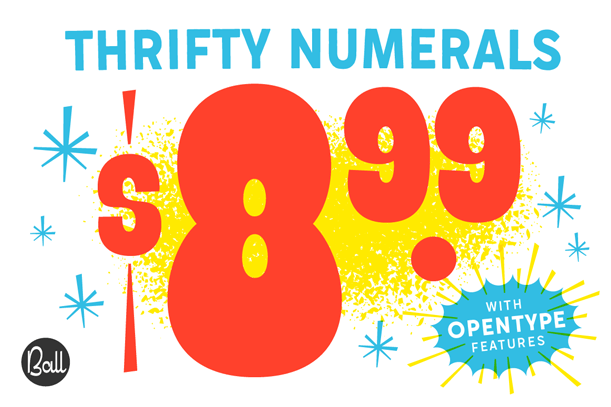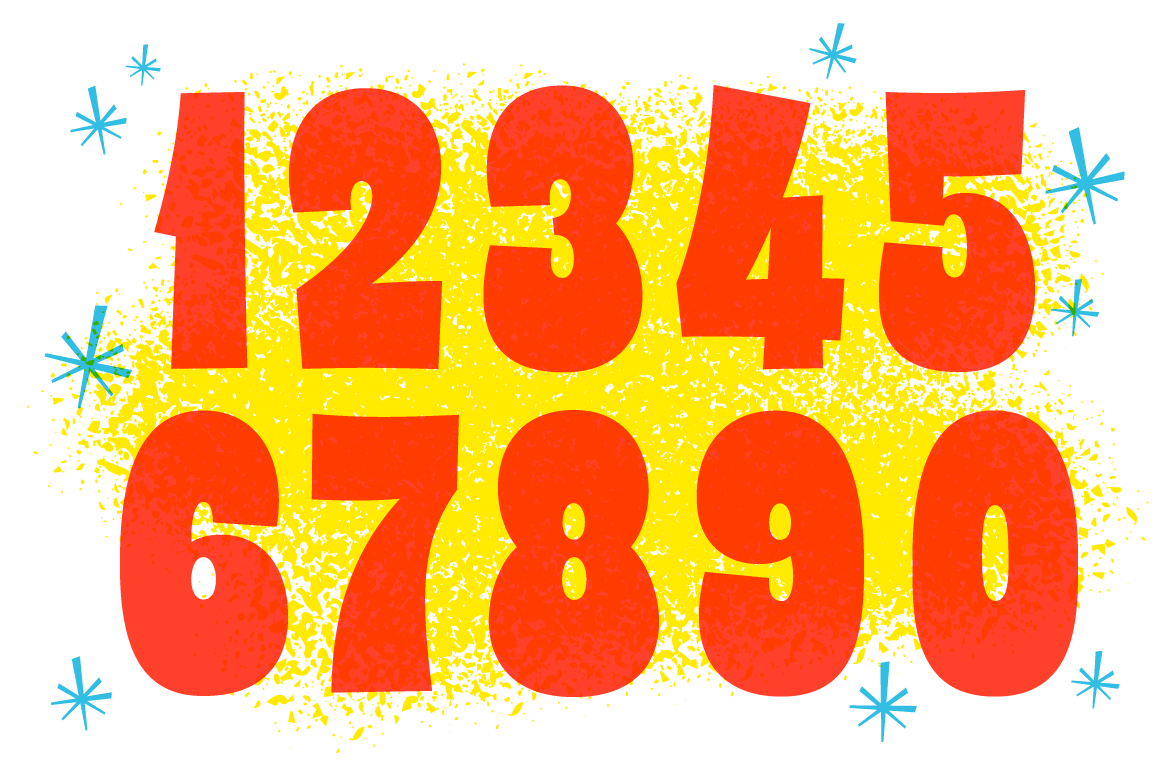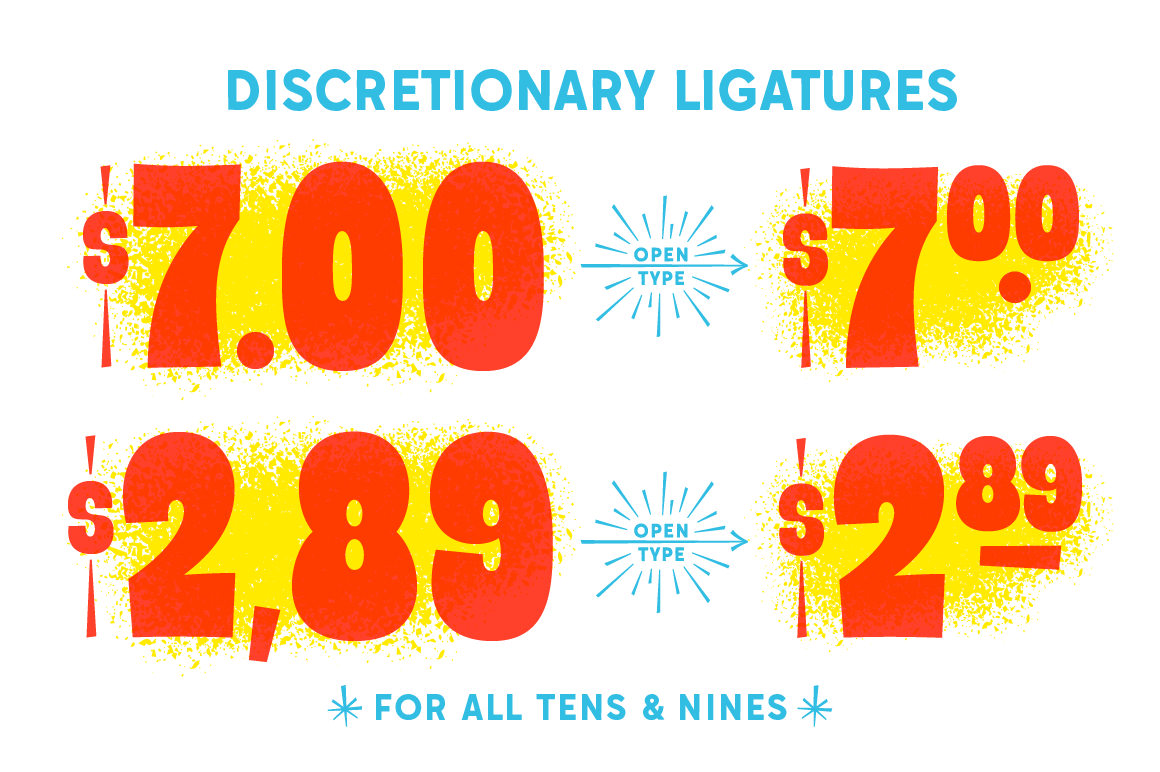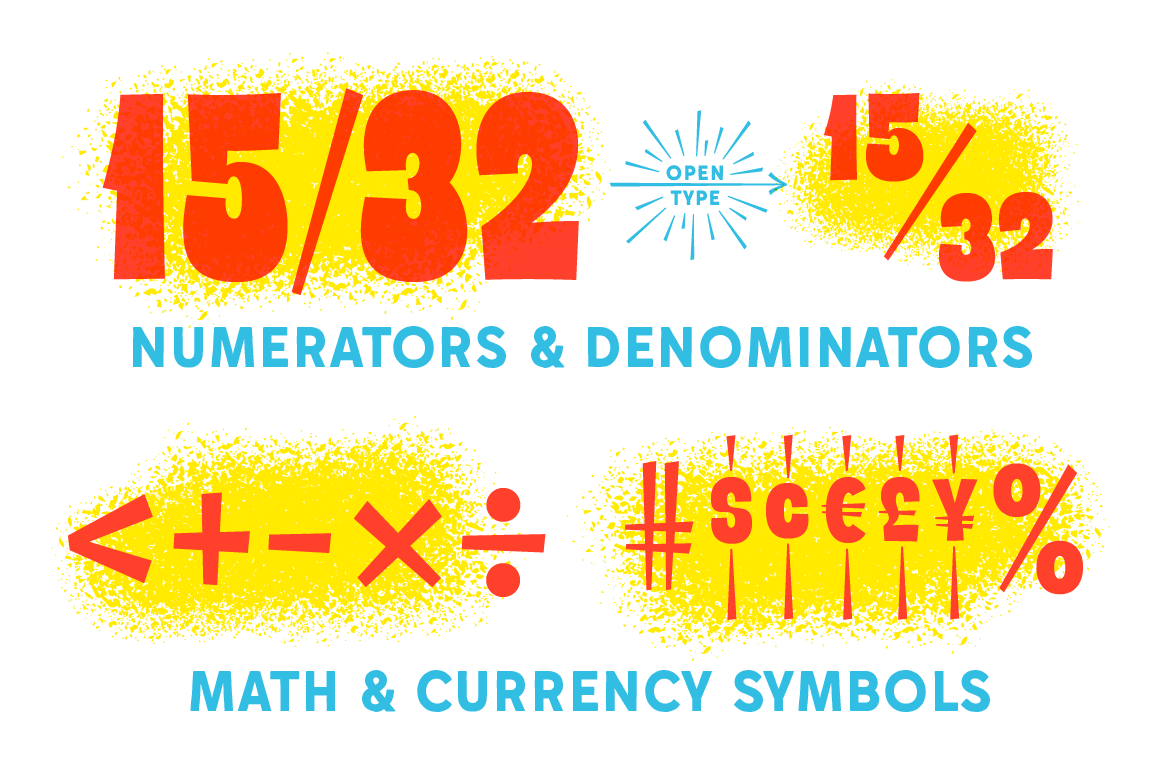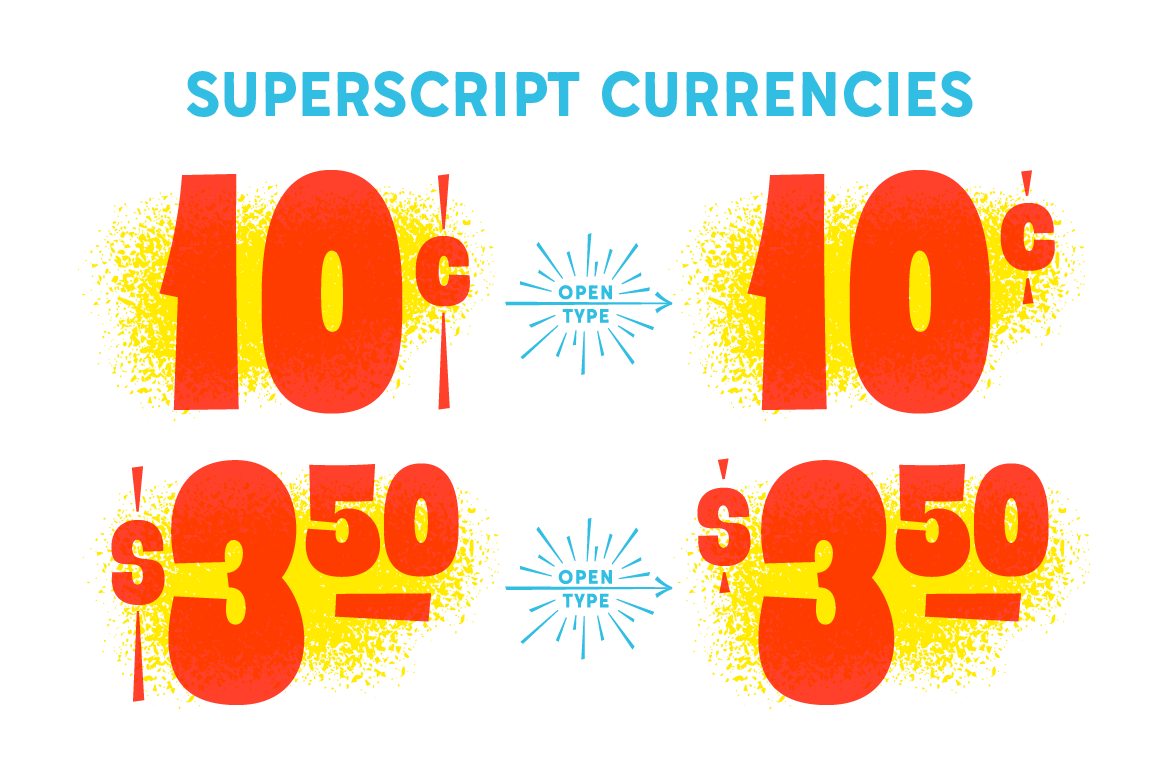
Thrifty Numerals
Font Family by Jonathan Ball
This display font is priced to sell! Inspired by hand-lettered grocery signage, Thrifty is a feature-rich set of numerals and symbols that's unapologetically loud. It has a number of OpenType features?like decimal ligatures and fractions?plus foreign currency symbols and math operators. It's kind of a big deal so shop today!